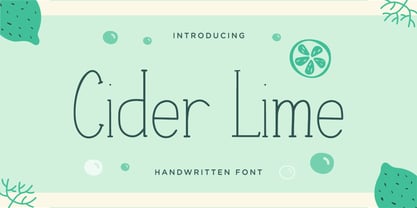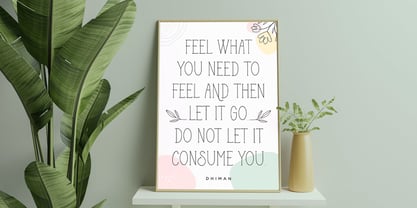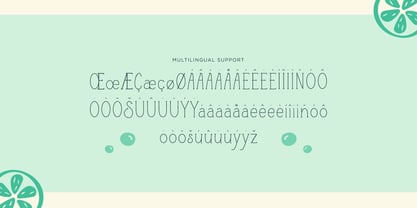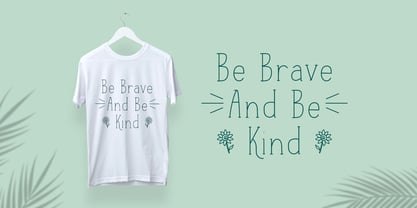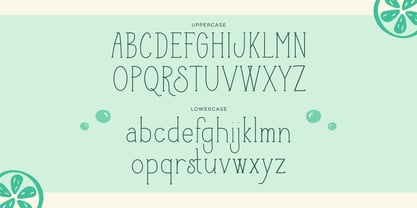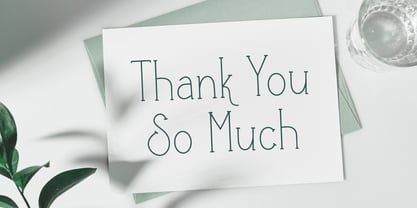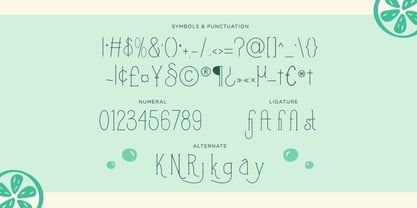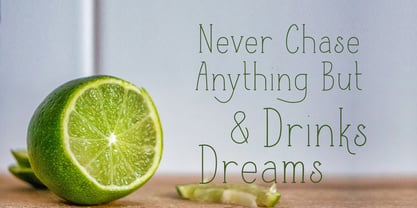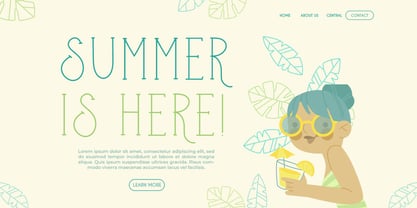
Cider Lime
by Typefactory
The Cider Lime Font Family was designed by Hilmius Akbar and published by Typefactory. Cider Lime contains 1 styles.
Cider Lime is a fun handwritten font.
This thin, fun, and stylish font can be used for a host of different content needs and projects.
Create gorgeous party invitations, printed quotes, standout packaging, or beautiful t-shirts!
You can even use it to create amazing headings, logos, menus, and social media graphics.
Features:
– Uppercase
– Lowercase
– Symbols & Punctuation
– Numeral
– Ligature
– Alternate
– Multilingual Support
Designers: Hilmius Akbar
Publisher: Typefactory
Foundry: Typefactory
Design Owner: Typefactory